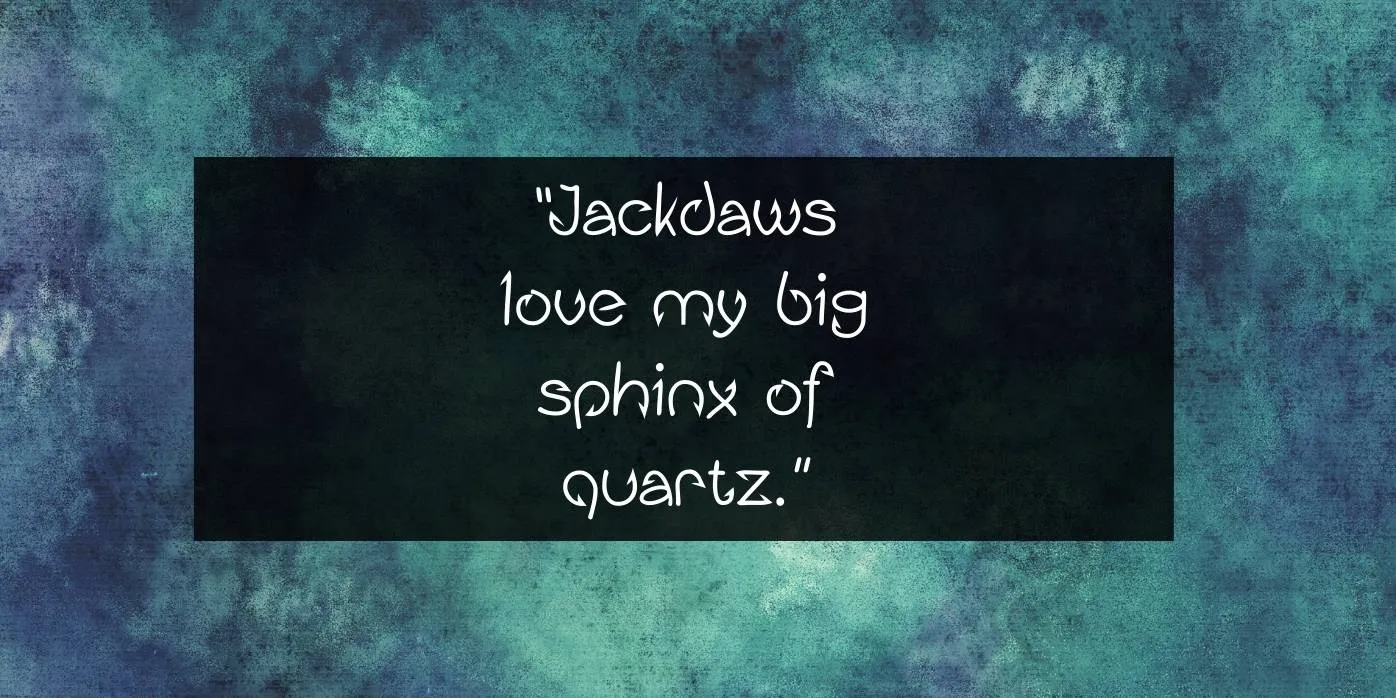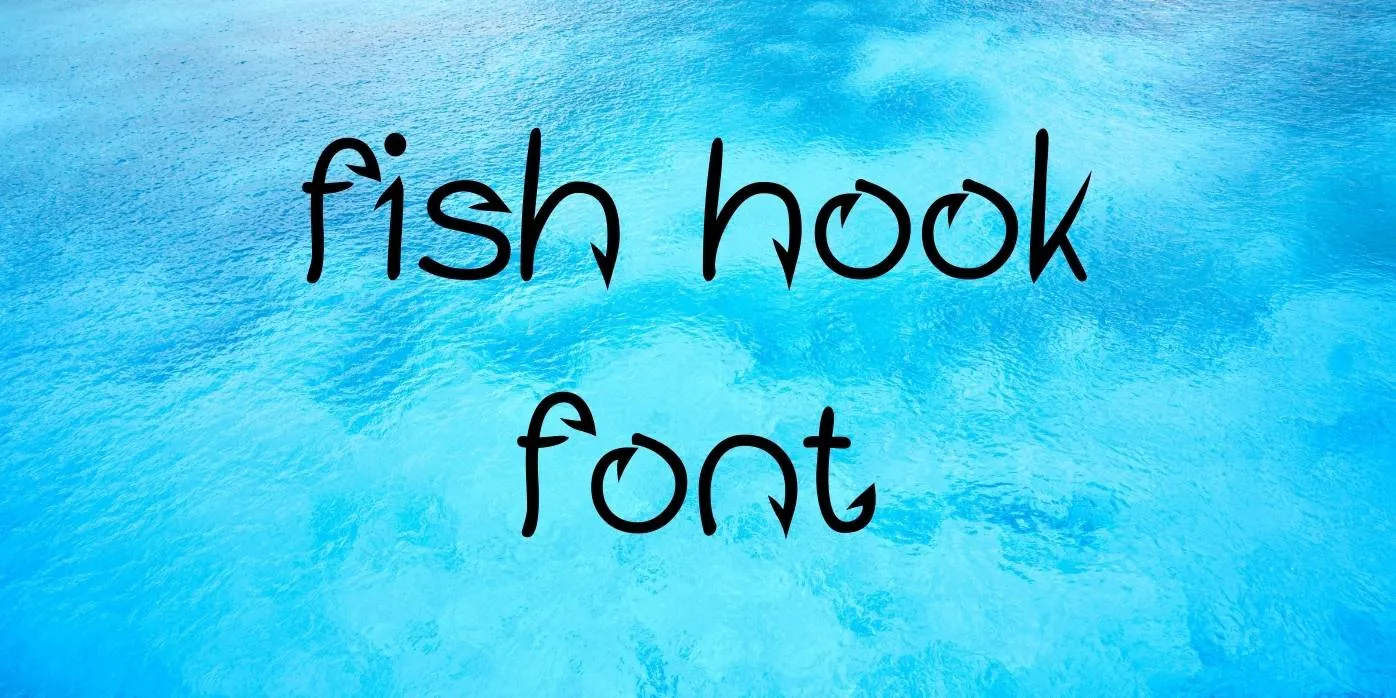
Fish Hook Font
We are going to introduce Fish Hook Font. It is a Fancy typeface with a unique and stylish design. It was developed by Robert Schenk. Inspired by the classic fishhook, this font features curved lines and sharp edges that give it a modern look.
Perfect for branding and advertising projects, this cute Font is sure to make your text stand out. It comes in 6 famous styles including regular, italic, bold, bold italic, Black, and Black Italic. All of these styles are available in TTF format. Its unique Glyphs will make your designs look more attractive.
And it also supports different international languages. It is very famous as compared to others because of its readability. It also provides a very amazing facility of generator tools for designs. Utilize its alternative Shopkins Logo Font.
This Sans Serif typeface is perfect for making headlines, titles, and Display purposes. So if you are looking for a stylish Font for your next project, then this Font is definitely worth considering.